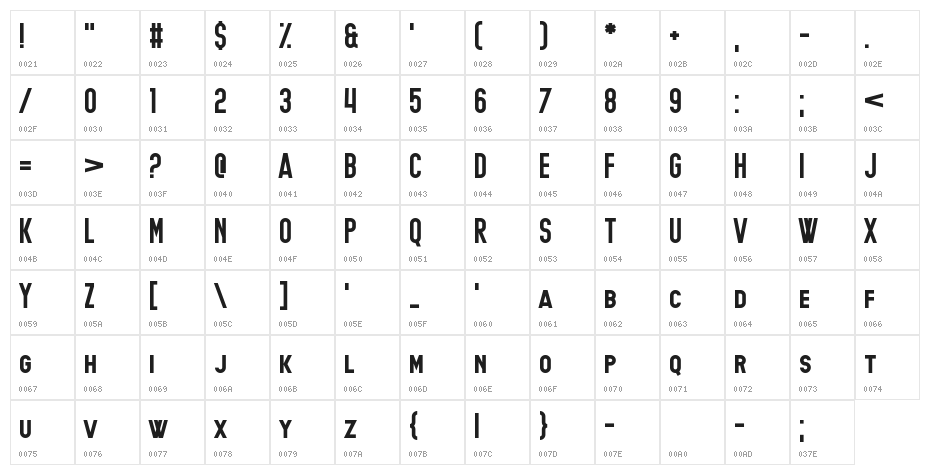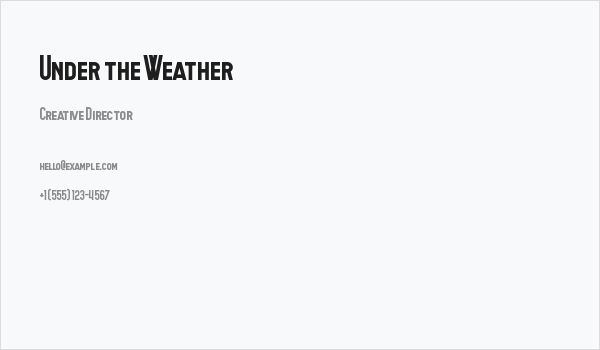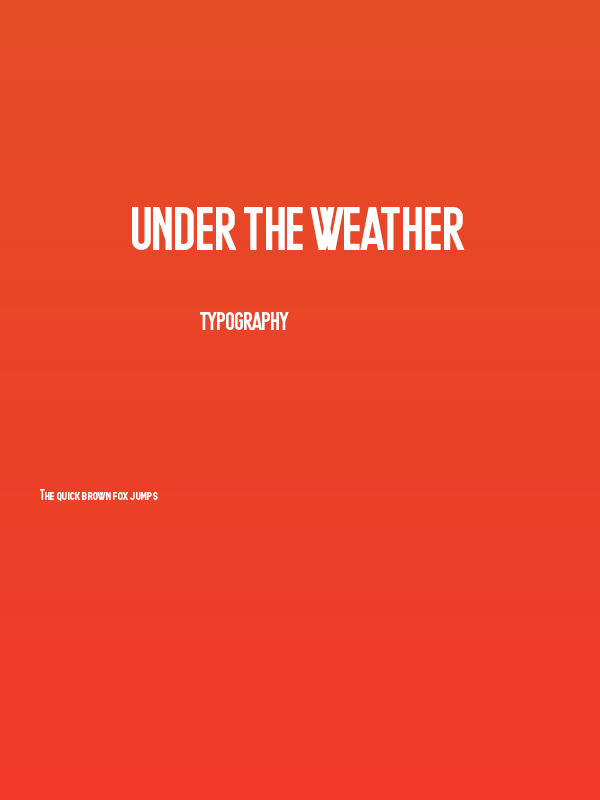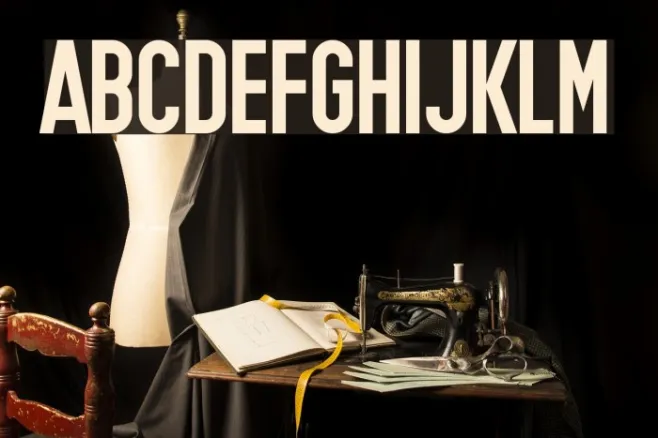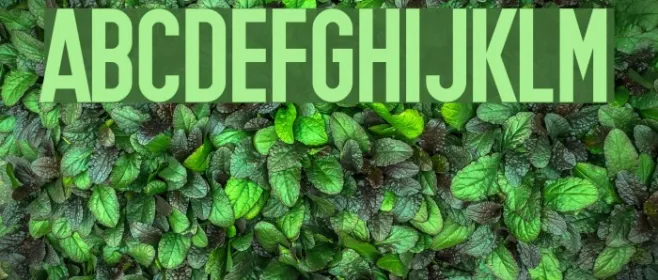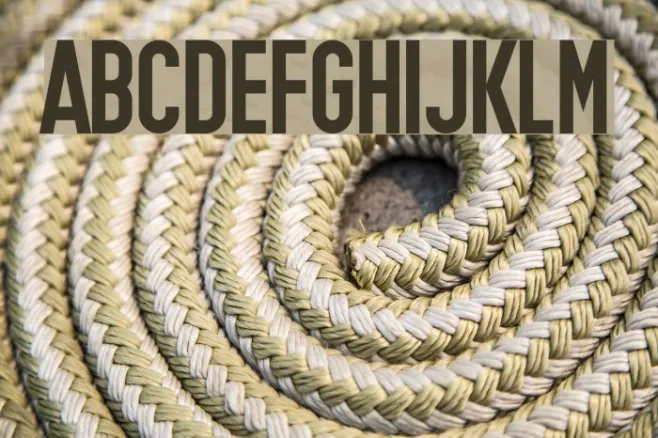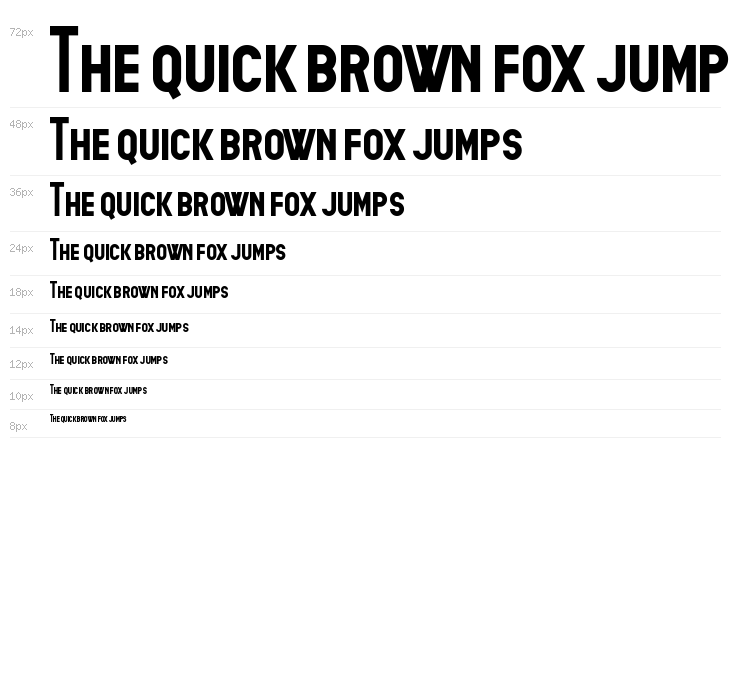
Under the Weather Font
Under the Weather Description
This font features bold, uppercase letters with a strong, impactful presence. The characters are uniformly wide, creating a sense of stability and strength. The strokes are thick and consistent, providing a high level of contrast that enhances readability. The design is straightforward and modern, with clean lines and a geometric feel. The numbers and special characters maintain the same boldness and clarity, ensuring a cohesive look across all elements. This font is ideal for making a statement, with its assertive and confident style.
| Proposed Projects | This font is perfect for headlines, posters, branding, and any project that requires a strong visual impact. |